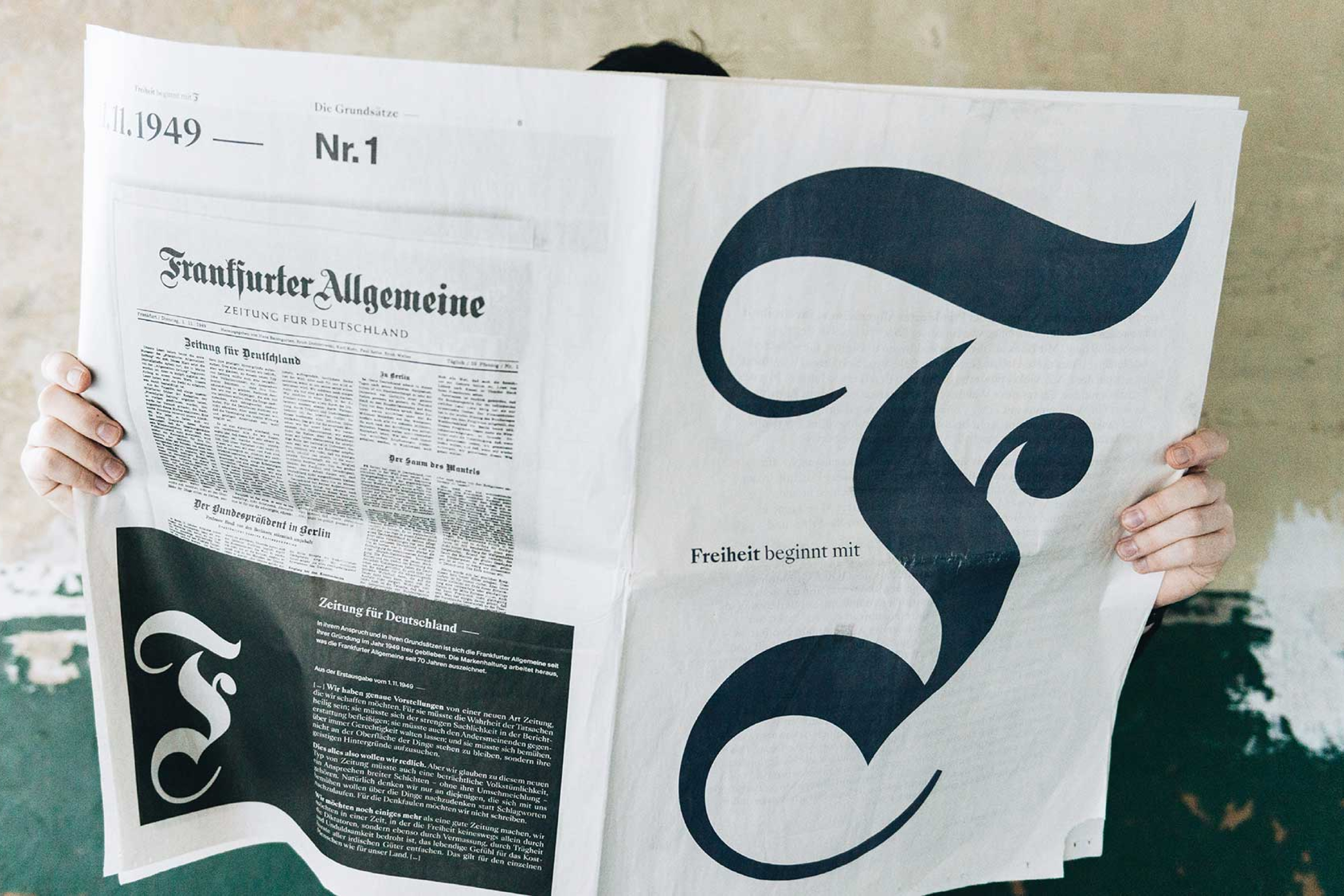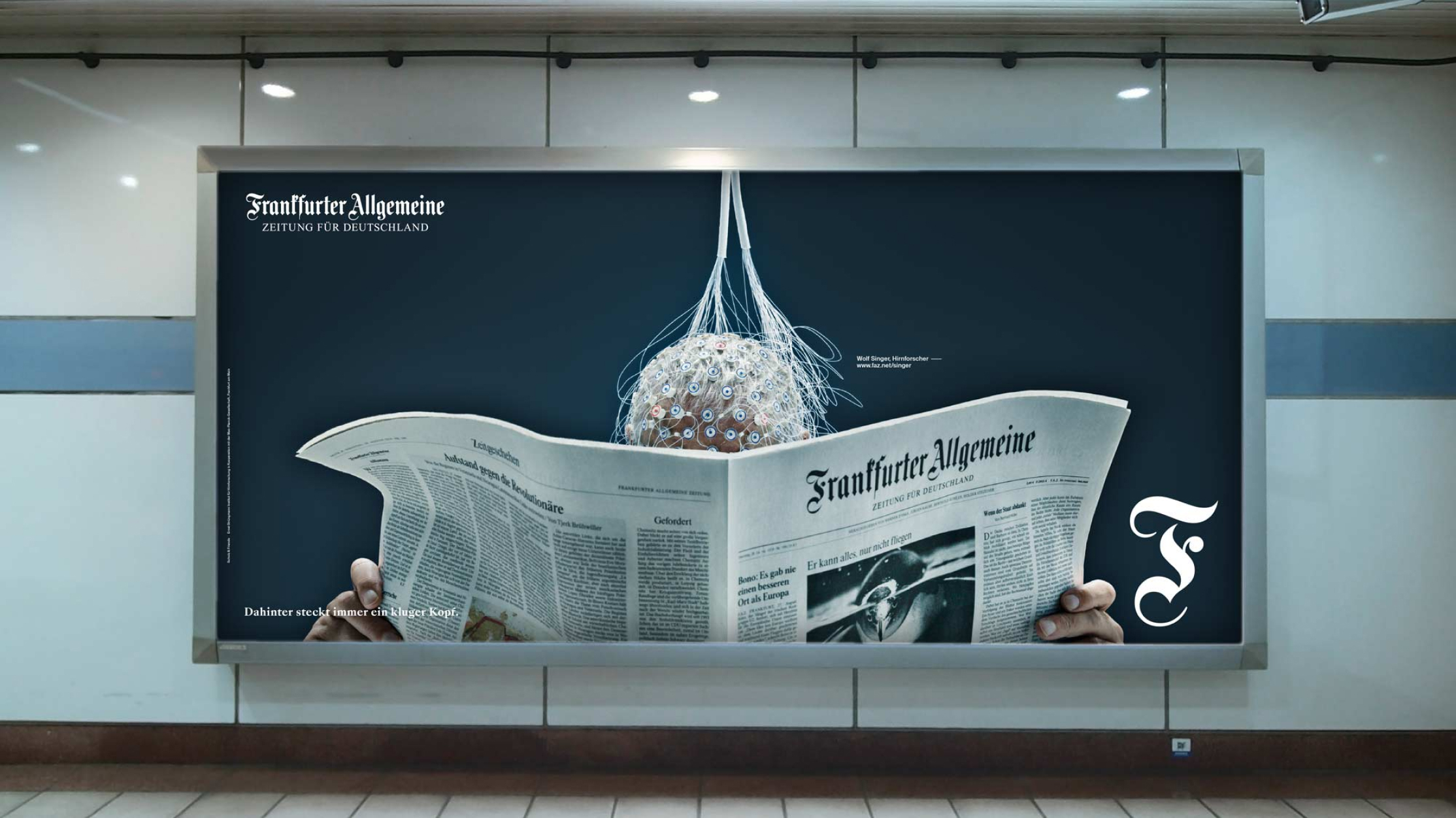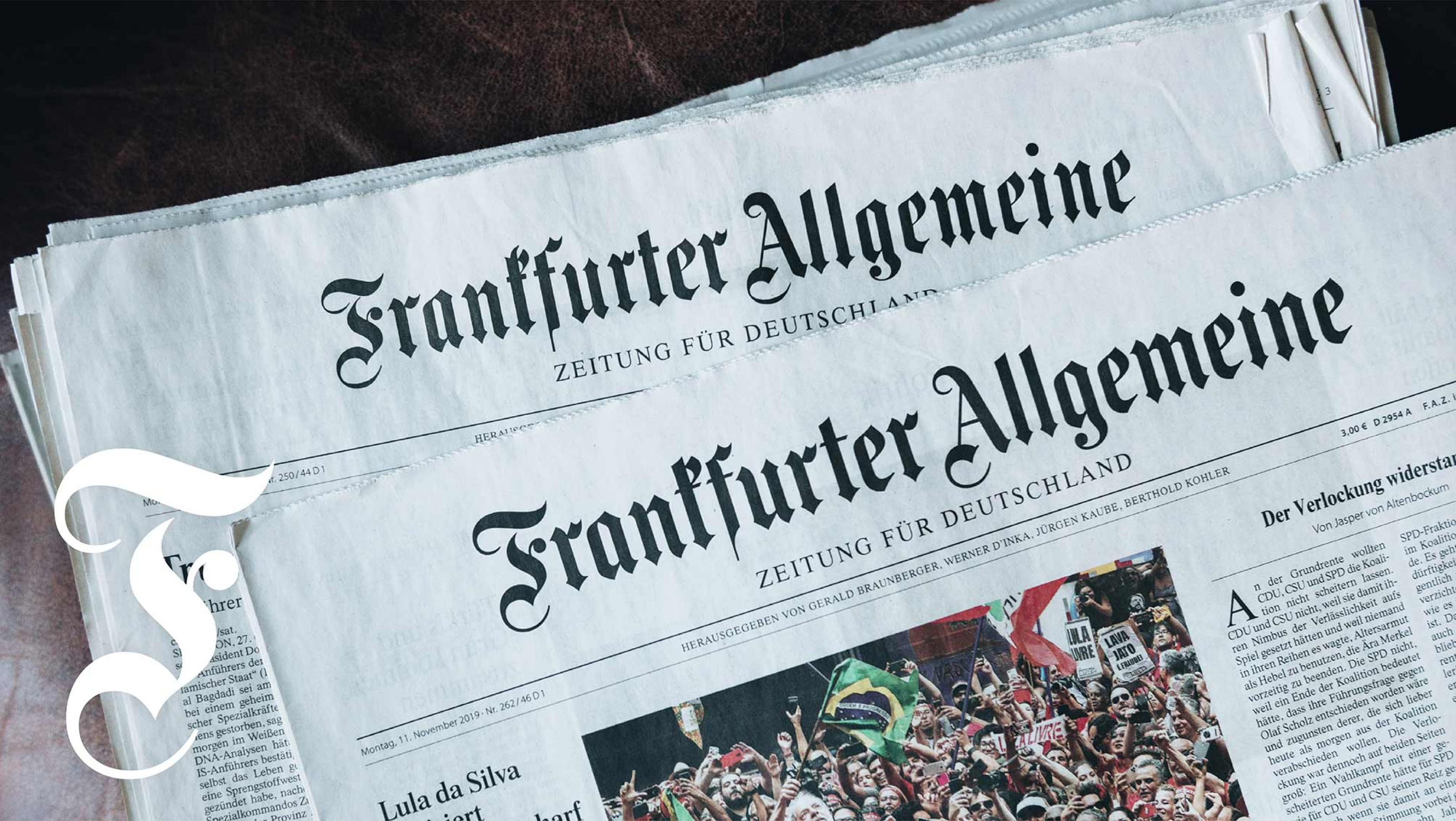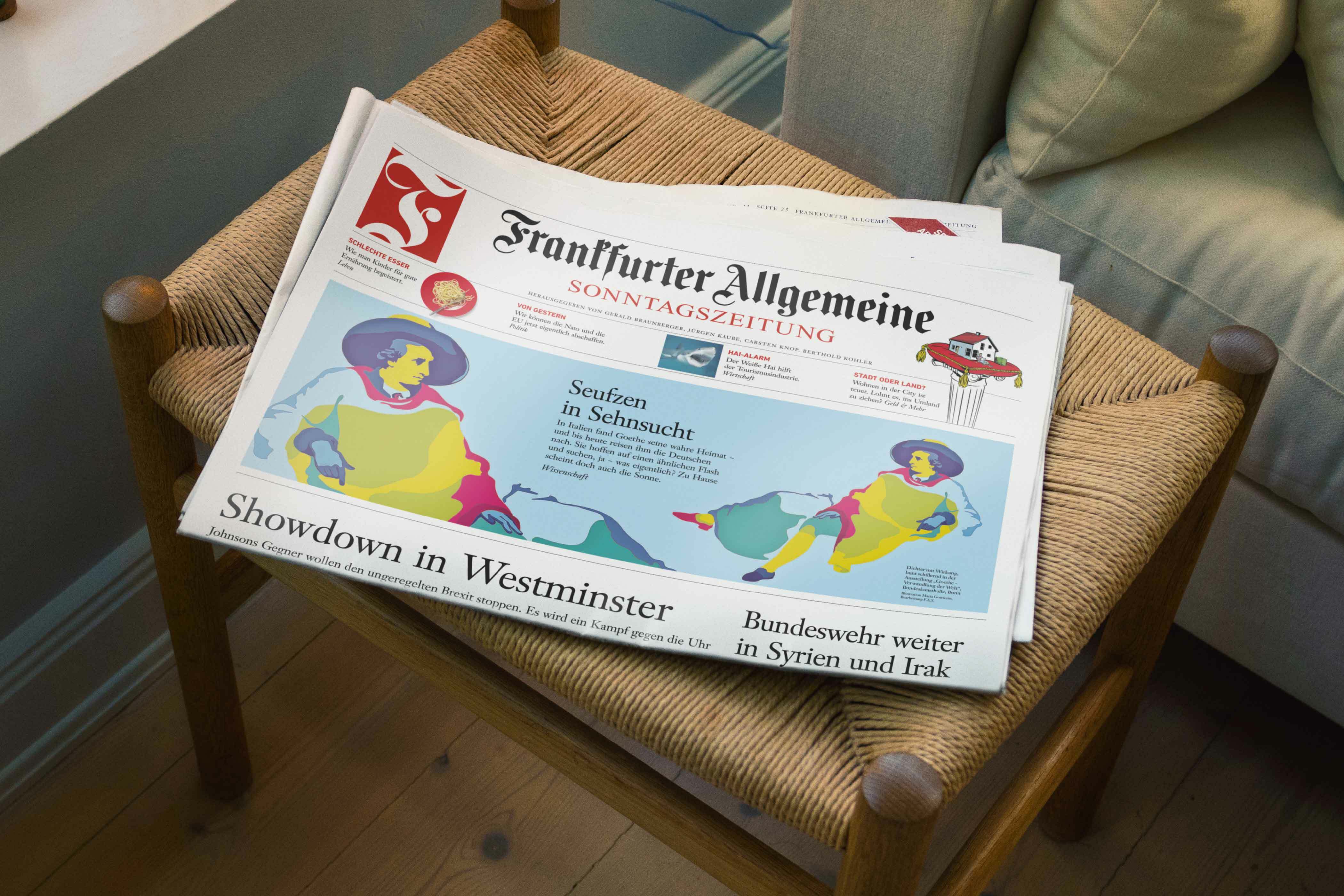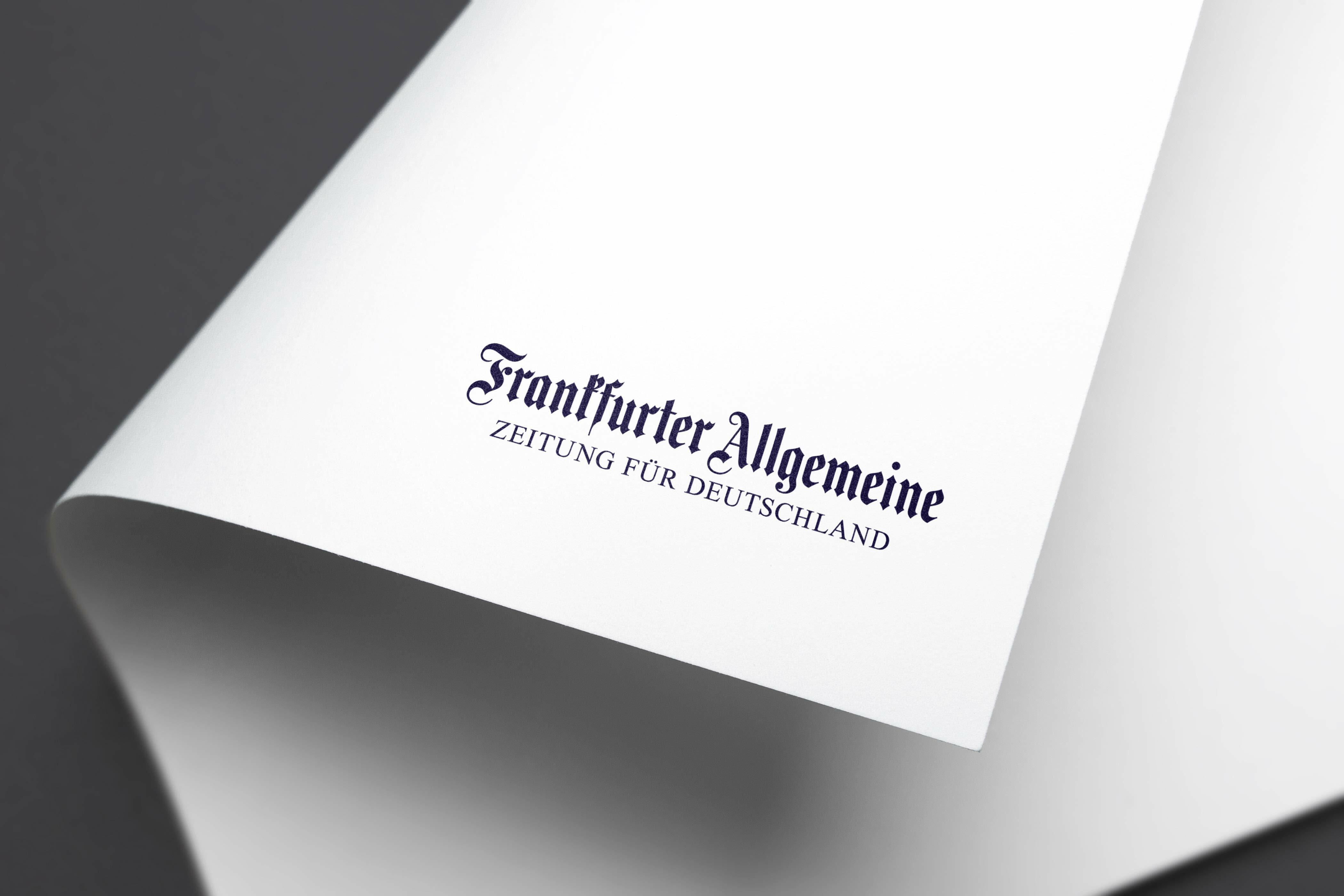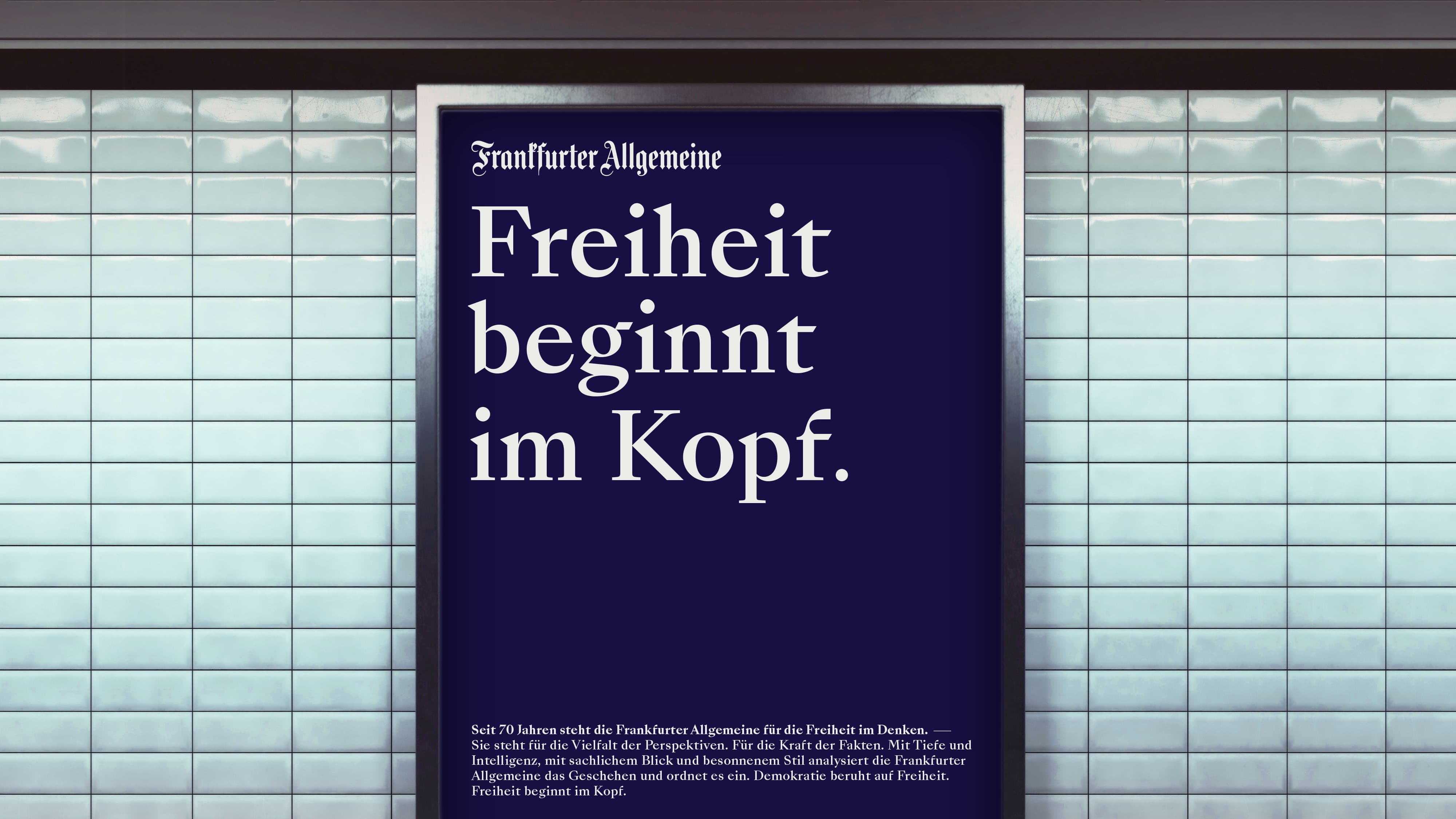
Frankfurter Allgemeine
A Logo Refinement for Frankfurter Allgemeine
Photograph of Frankfurter Allgemeine in use
Frankfurter Allgemeine logo
Photograph of Frankfurter Allgemeine in use
Photograph of Frankfurter Allgemeine in use on billboard
Frankfurter Allgemeine
A Logo Refinement for Frankfurter Allgemeine
Photograph of Frankfurter Allgemeine in use
Frankfurter Allgemeine logo
Strichpunkt asked us to rejuvenate the FAZ logo to enhance clarity and bring refinement, but keep its essence. With improved spacing and contrast, and new letter forms, the final logo retains the original’s elegance, but prepares it for the journey from paper to pixel.
Frankfurter Allgemeine Logo, Logo Refinement, 2019
Exploration
Frankfurter Allgemeine Original Logo
Original logo
Exploring the design
Frankfurter Allgemeine Exploration Final Logo
Final logo